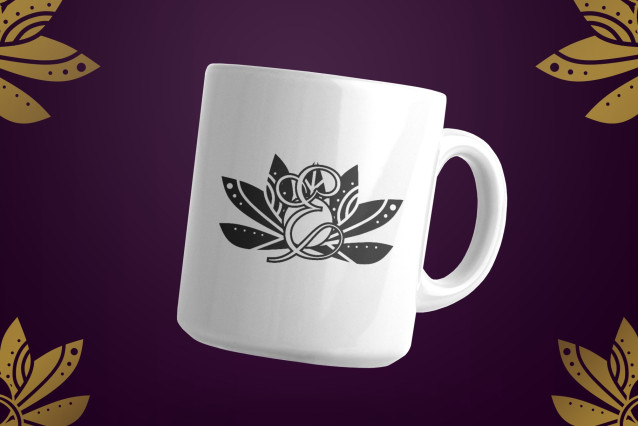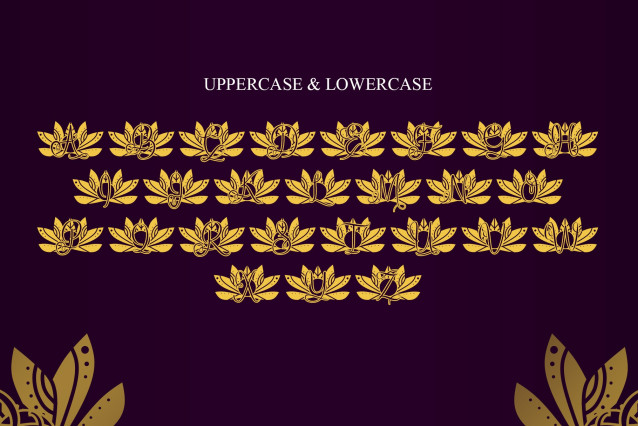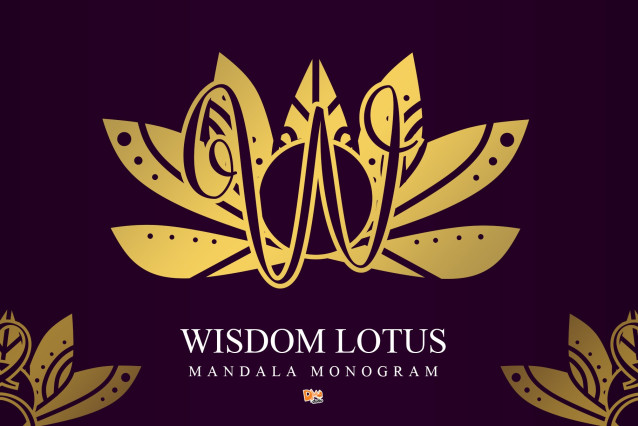
Wisdom Lotus Mandala Monogram Font
Wisdom Lotus Mandala Monogram is a beautifully refined monogram font inspired by the symbolism of the lotus and the calm essence of wisdom. Every character is thoughtfully adorned with hand-drawn mandala patterns, representing knowledge, serenity, and elegance. This typeface is ideal for mindful branding, spiritual products, personalized gifts, and sophisticated stationery that seeks to convey depth and grace.